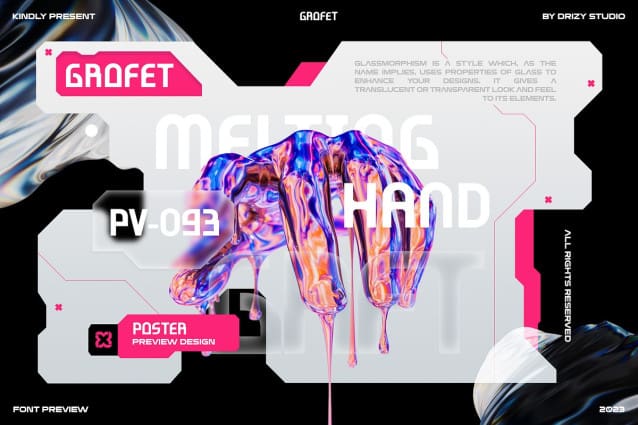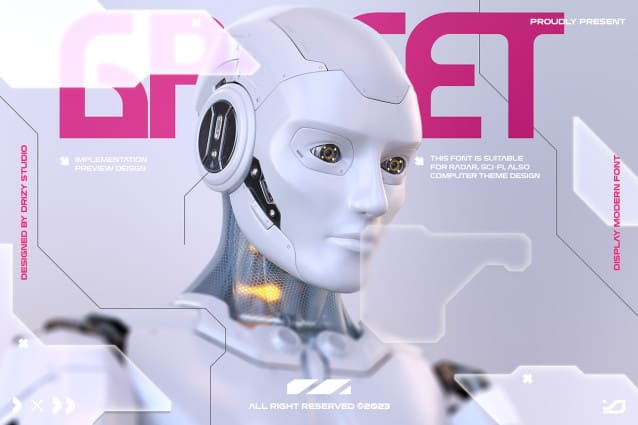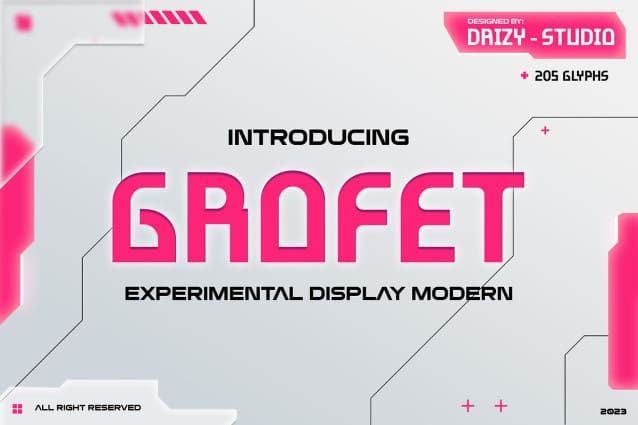
Grofet Display Font
Grofet Display Font is the experimental modern font, cutting-edge typographic creation that pushes the boundaries of traditional design, offering a bold departure from conventional fonts. This avant-garde typeface seamlessly blends modern aesthetics with an experimental twist, resulting in a visually striking and innovative design.